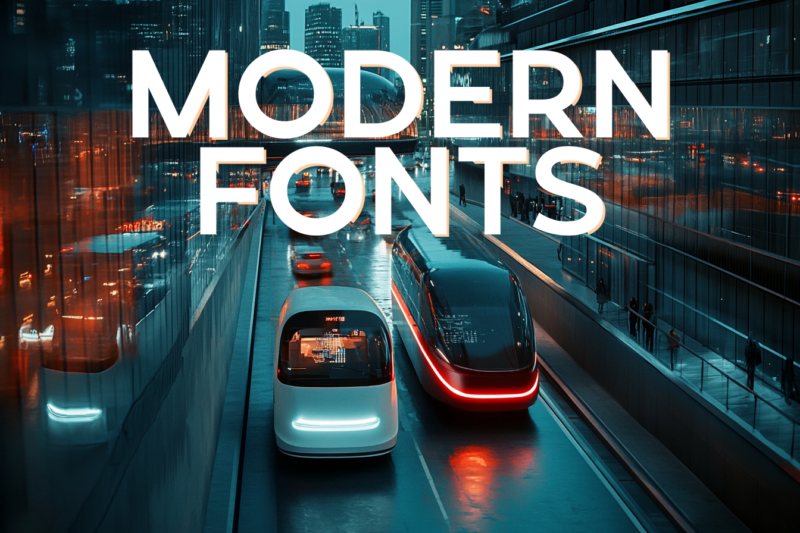
39 Best Modern Fonts for Cutting-Edge Designs (October 2026)
Clean aesthetics, versatility, high readability, professional look, and unbelievable variety—these are the things you can associate with modern fonts. However, with so many options, it can be tricky to identify them.
If you are new to typography, you might not know about some of its more complex parts. Typography is not just about basic things like serif and sans serif fonts; it is a whole field that explores the details and history of typefaces.
To make things simple for you, I have prepared a list of some of the best modern fonts for trendy designs.
Waqaw – Serif Modern Font Typeface
A bold, regular and light font typeface suitable for branding projects like logos, t-shirt printing, and esports. Features uppercase characters and comes in bold, regular, and light (italic) variants. Available in OTF and TTF formats.
Rocket – Modern Sans Serif Family Typeface
A clean, minimalist font with timeless appeal. Perfect for contemporary branding, editorial design, and modern interfaces. Includes OTF, TTF, and WOFF formats.
Modern Aesthetic – Modern Font
A serif display typeface designed for logos & branding, social media posts, advertisements & product designs. Available in OTF, TTF, and WOFF formats.
Modern Love
A versatile font with 40+ unique alternates and ligatures. Ideal for logos, quotes, posts, branding projects, magazine imagery, and wedding invitations. Includes extensive multilingual support and comes in OTF, TTF, and WOFF formats.
Kubite – Modern Boldline
A calligraphic style font perfect for greeting cards, branding materials, business cards, quotes, and posters. Features Stylistic Sets, Alternates, Contextual Alternate, SWASH, and Ligature with PUA unicode support.
Revoxa – Modern Display
A contemporary digital font with three styles: Regular, Cut, and Line. Designed for modern applications with blending capabilities. Includes multiple weights and formats (OTF/TTF) with multilingual support.
Farware – Modern Font
A modern sans serif font including uppercase letters, numerals, and extensive punctuation. Designed for posters, web design, branding, illustrations, and badges. Available in OTF and TTF formats.
MBF Modern Rebel
A modern futuristic display font inspired by the cyberpunk era, featuring unique diagonal ornaments. Ideal for titles, large size display, logotype, and wordmarks. Includes multilingual support.
Havox – Modern Font
A sans serif font with modern styling, including uppercase letters, numerals, and punctuation. Created for posters, web design, branding, illustrations, and badges. Available in OTF and TTF formats.
Griffin – Modern Serif
A chic & elegant display modern serif with beautiful contrast, designed for fashion-themed projects. Features multilingual support, alternates & ligatures, and PUA encoding.
Modeka – Modern Font
A regular modern sans serif font with an elegant style.
Stickler – Modern Typeface + WebFont
A modern and minimal sans serif typeface perfect for creative and classic typography designs. Includes OTF, TTF, and web fonts (EOT, SVG, TTF, WOFF) with HTML webfont demos.
Prohead – Modern Condensed Sans Font
A modern sans-serif condensed font with 7 versatile weights, combining classic design with contemporary trends. Perfect for logos, branding, web design, and packaging. Includes desktop and webfont versions with multilingual support.
Charis
A stylish serif font combining crisp lines with a delicate feel, giving it a luxurious and feminine touch. Perfect for skincare brands and artisanal logos in 2024. Designed by Sans and Sons.
Similarly, for brands that focus on printed materials, modern serif fonts are easy to read on paper and work well for pairing with other fonts and designing logos.